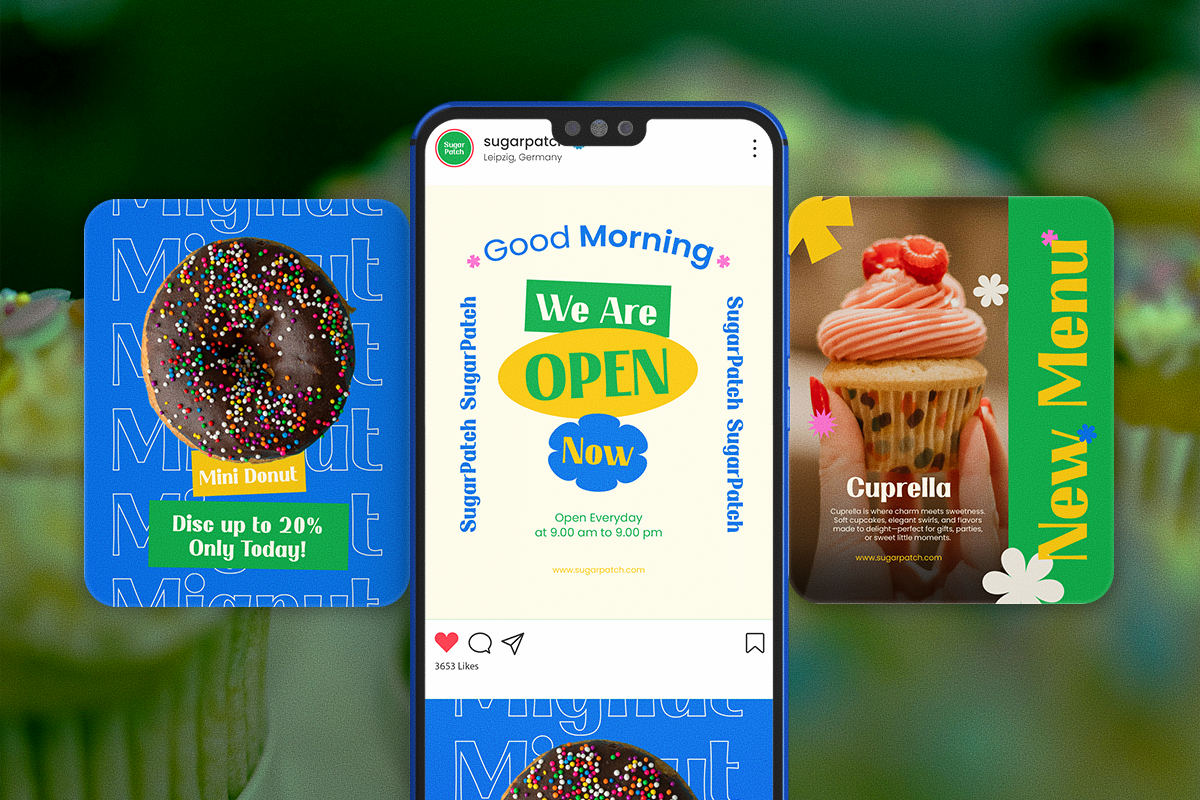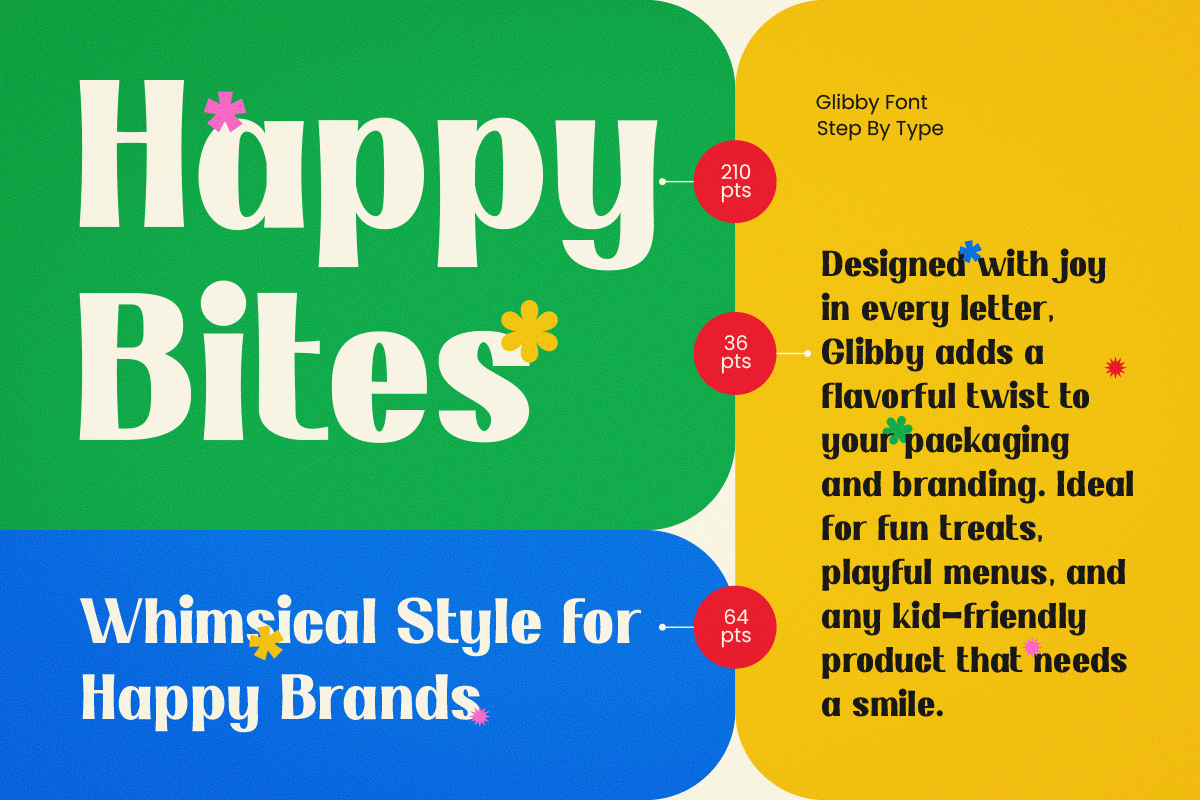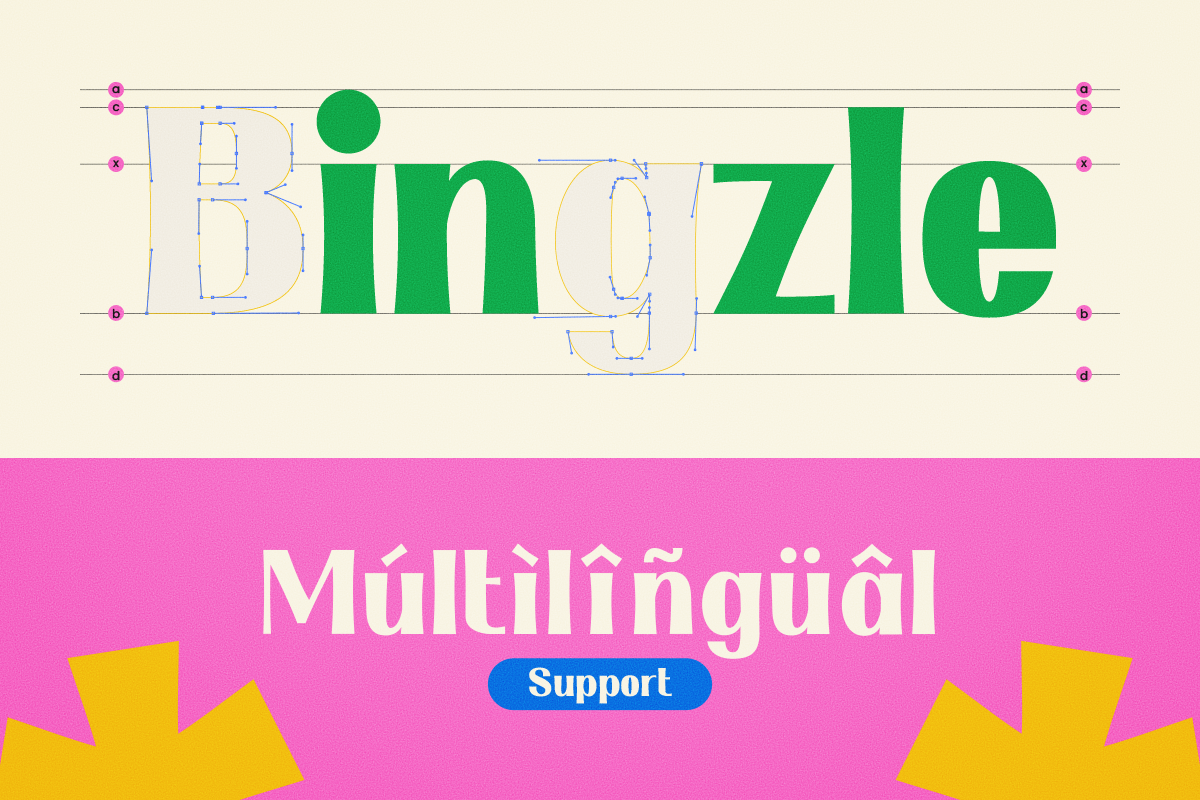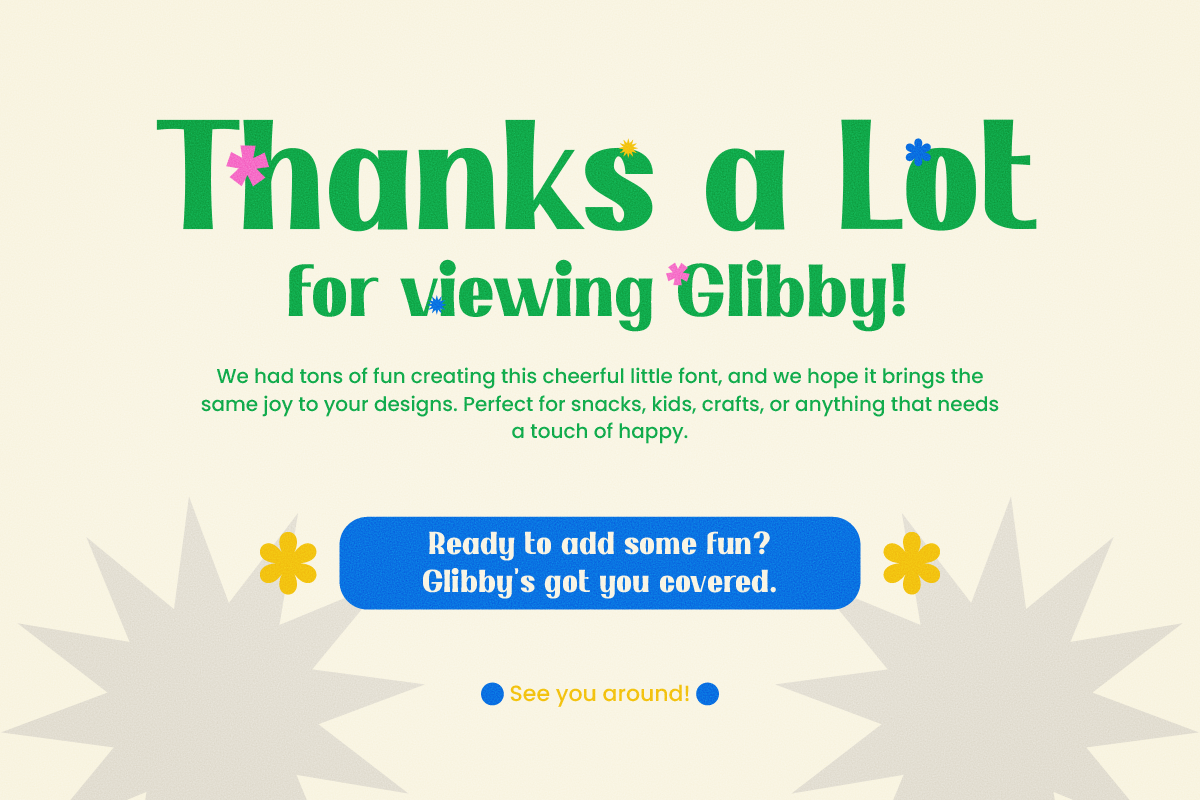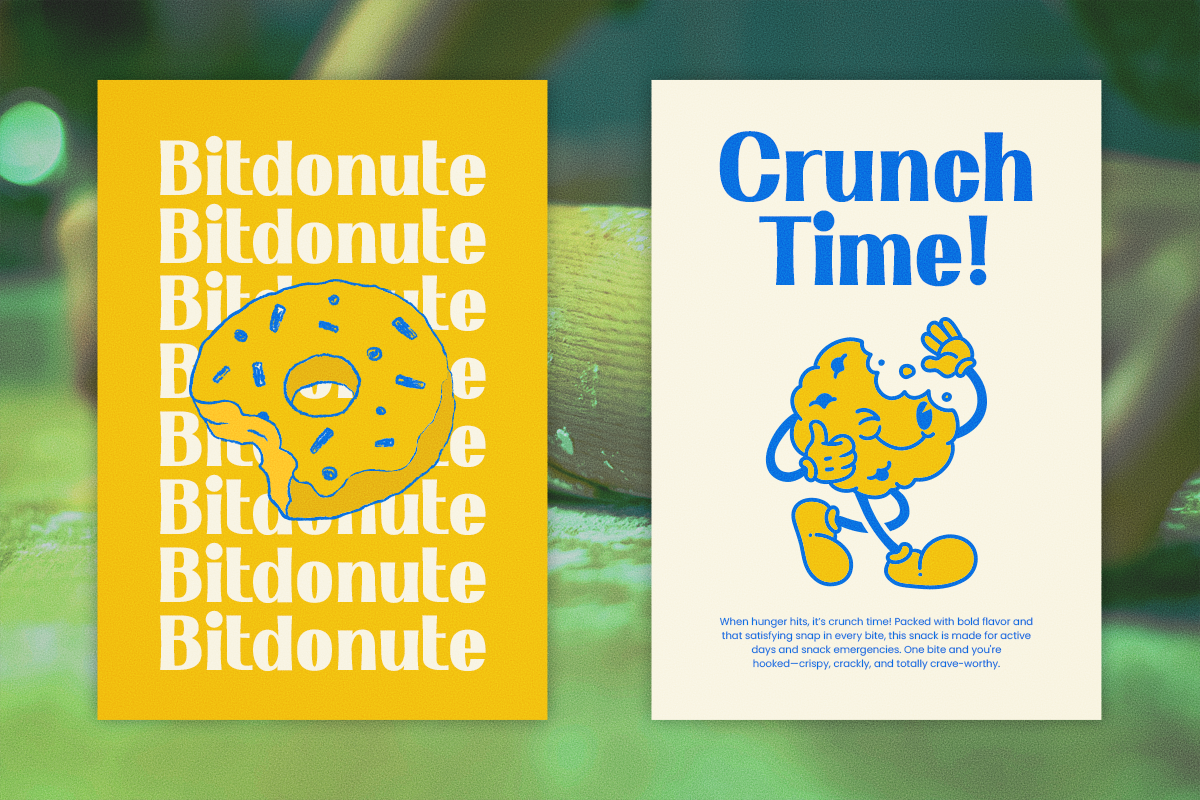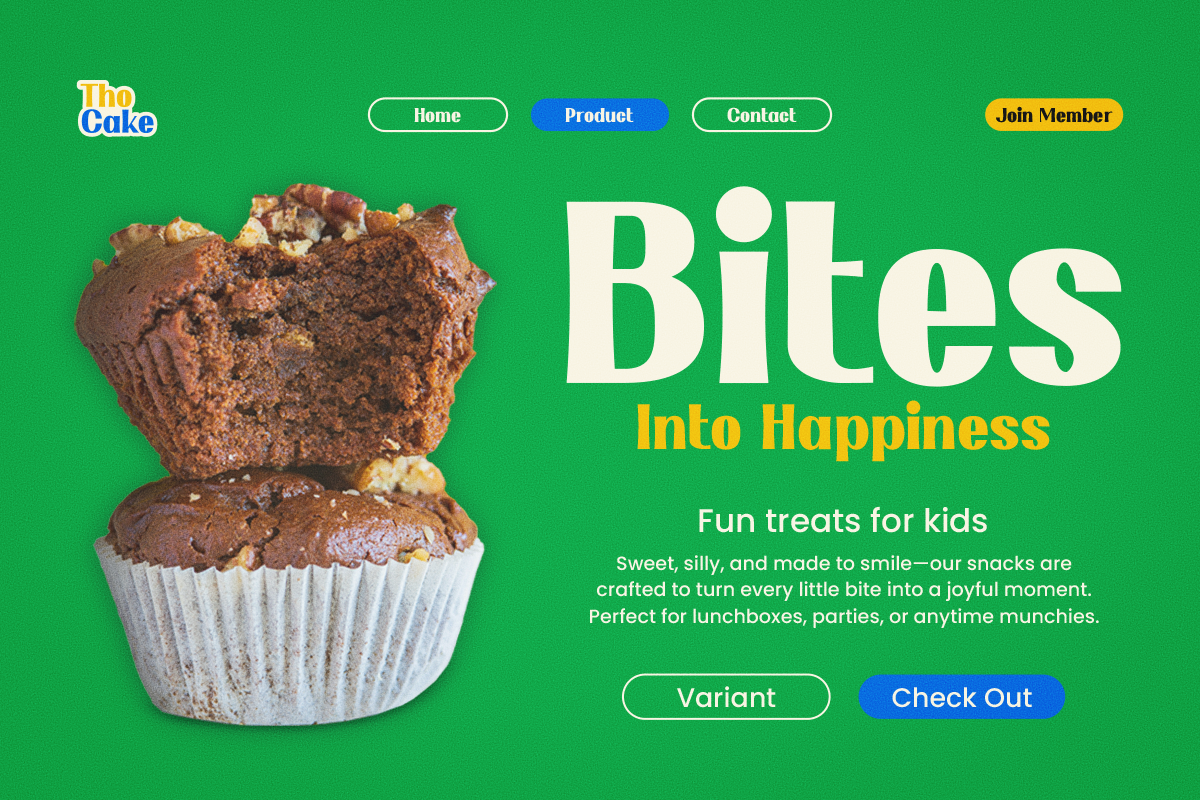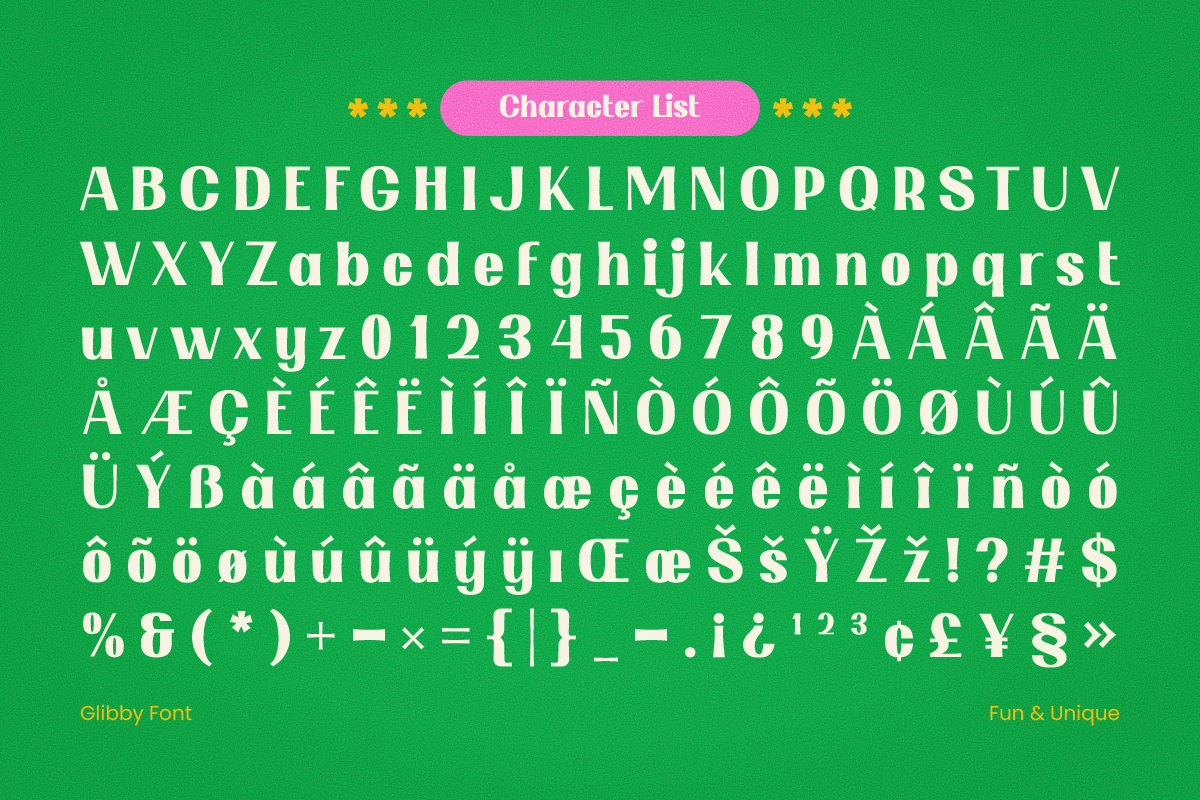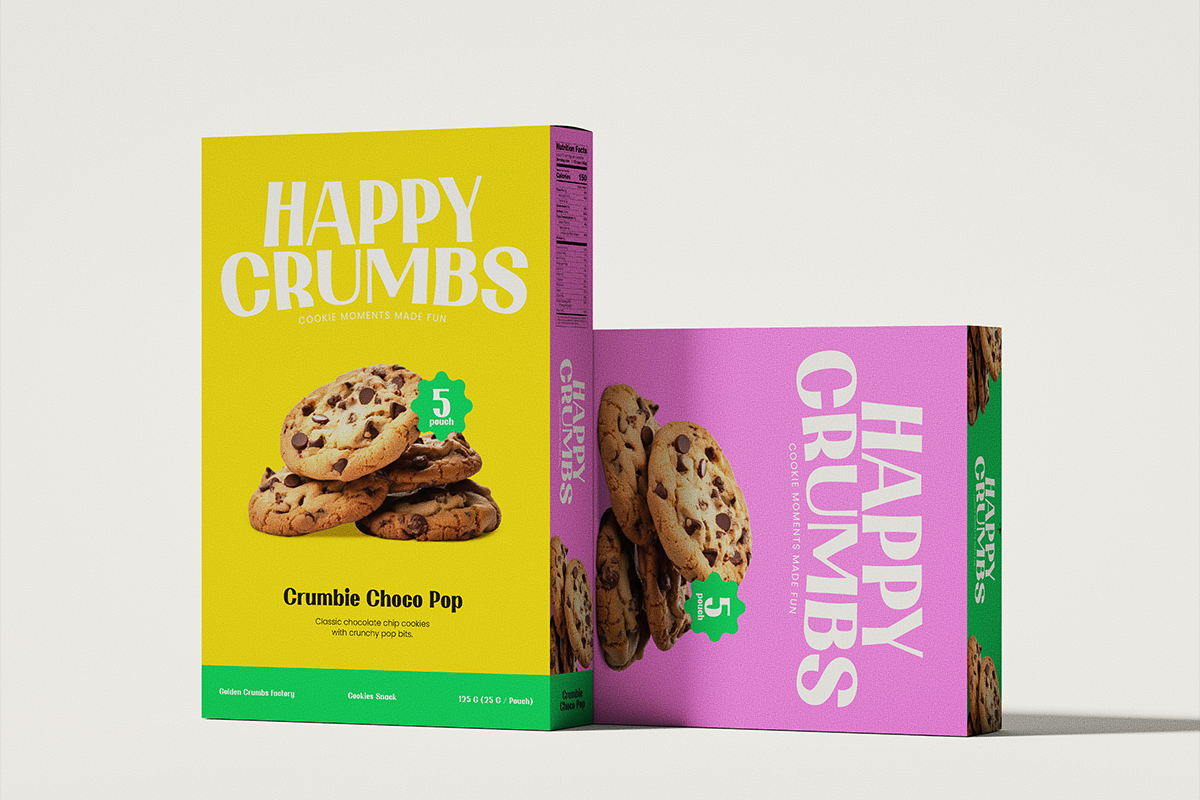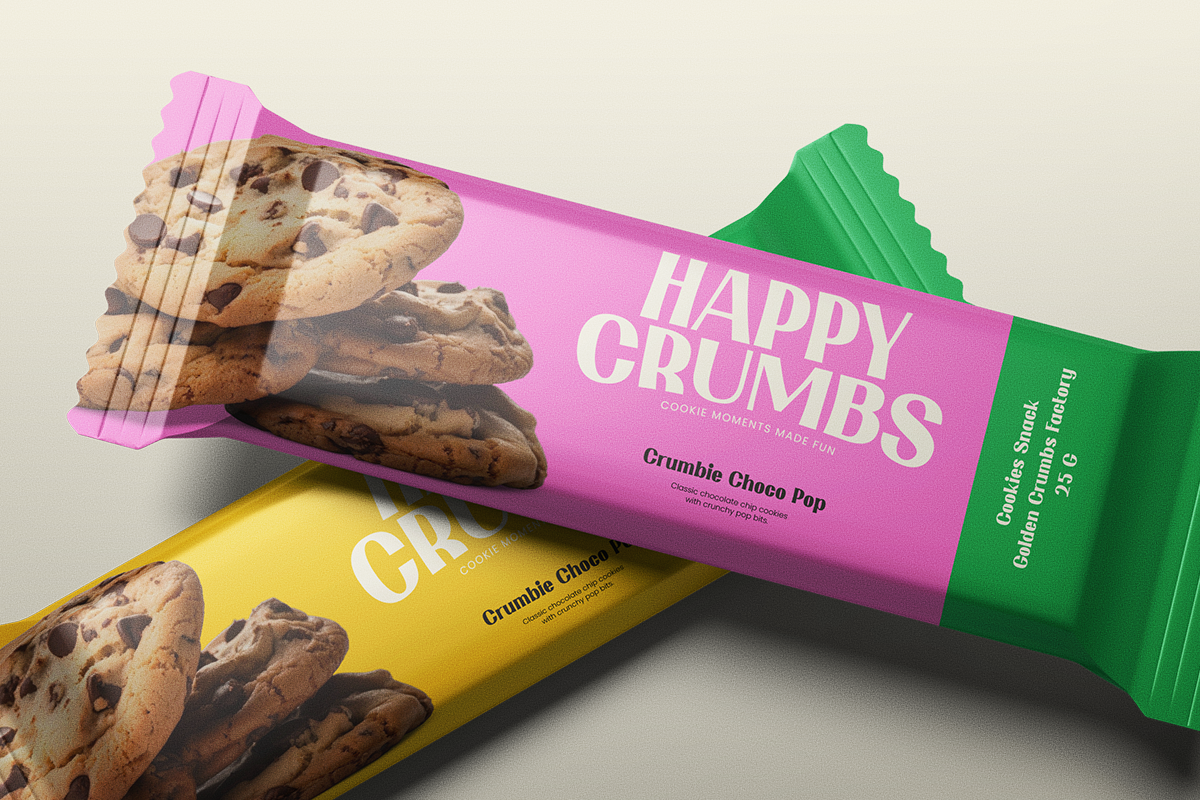
Glibby - A Playful Display
Glibby is a fun, friendly display font made for kid-focused brands and playful packaging. Its bold curves, chunky lowercase, and cheerful quirky shapes bring instant sweetness to snack labels, bakery logos, birthday invitations, and candy-bright product branding — the kind of type that makes everything feel joyful and a little bit silly.
With 200+ glyphs and a warm, rounded personality, Glibby is easy to reach for whenever a project needs to feel happy, sweet, and playful. It's perfect for children's brands, confectionery and snacks, party and event design, and cheerful social media.
Great for: kids' and children's branding, snack and candy packaging, bakery and dessert logos, birthday and party design, playful posters, social media, product labels, and any project that needs a sweet, cheerful touch.